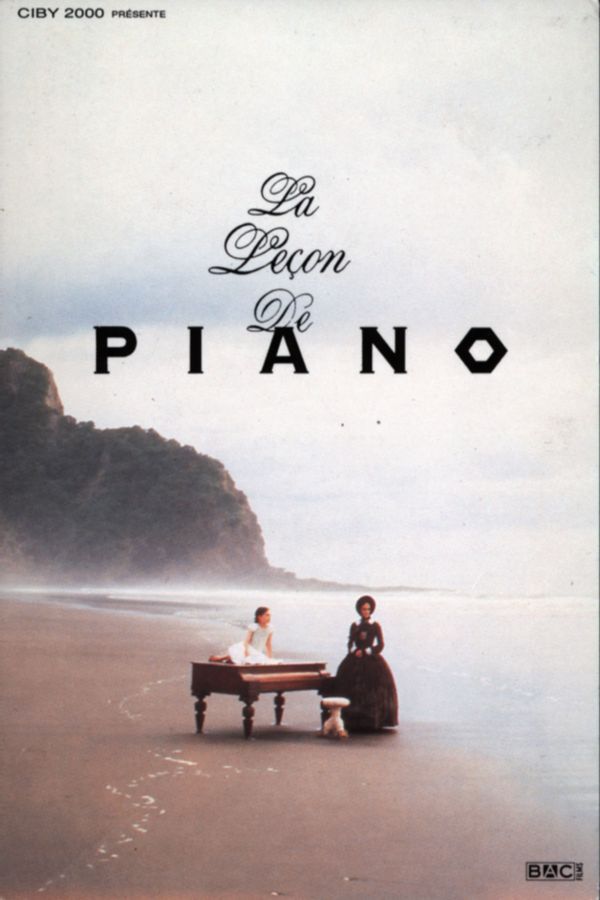
The Piano Font
Fonts in UseThe Piano is a 1993 film directed by Jane Campion. Set in 1850s New Zealand, it follows a mute pianist, Ada McGrath (played by Holly Hunter), who arrives with her daughter and piano for an arranged marriage but finds herself drawn to a local worker, George Baines (played by Harvey Keitel).
The movie poster's title font is likely Copperplate Gothic Heavy, a typeface by Frederic W. Goudy that draws inspiration from the 19th-century engravers' style. Additional information about this font can be accessed here.